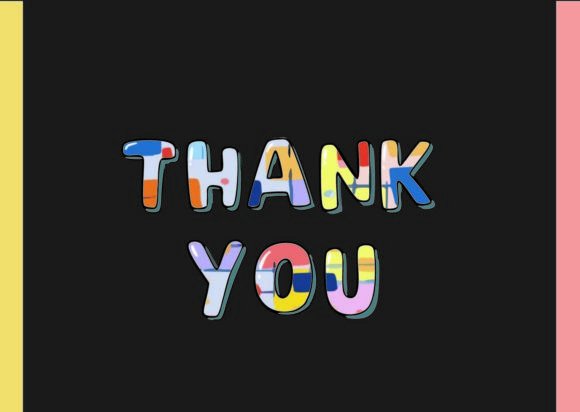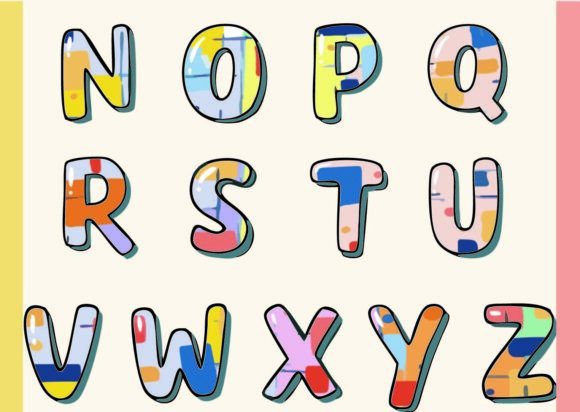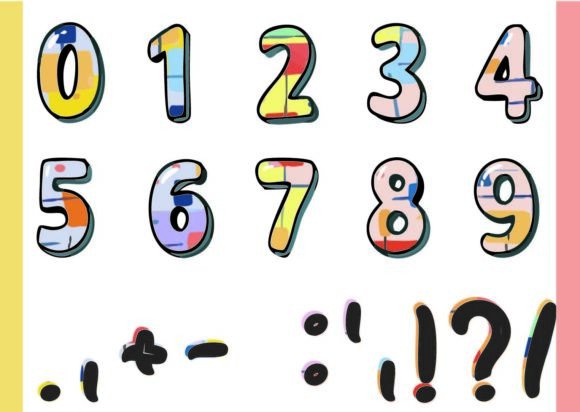
Discover the Vibrant World of Camila Font
Have you ever found yourself staring at a blank canvas, waiting for inspiration to strike? For designers, those moments of creative spark can be the most exciting. It’s the instant when a new idea emerges, and the possibilities seem endless. For Camila Font creator, the spark was ignited by a passion for colorful typography.
Camila Font is a revolutionary color font that brings vibrancy to your designs. With every glyph featuring its own unique color palette, this font is a treasure trove for creatives. Each glyph is a miniature work of art, comprising intricate paths and connections that can be used as a typographic painting. Whether you’re a graphic designer, digital artist, or crafty entrepreneur, Camila Font is a valuable addition to your toolkit.
With its compatibility with popular design software like Photoshop, Illustrator, Silhouette, and Inkscape, Camila Font is an essential tool for designers looking to add a pop of color to their projects. Whether you’re working on a branding project, a social media campaign, or a print design, Camila Font is sure to inspire your creativity and elevate your designs to the next level.
Camila Font Key Features
- Font Family: Camila Font is a sans-serif font family.
- Unique Characteristics: Camila Font features a clean and modern design, with a focus on legibility and readability. It has a distinctive x-height and a subtle rounded edge to the terminals, giving it a friendly and approachable feel.
Camila Font Review
Overall, I think the Camila Font is a decent option for designers looking for a modern sans-serif font. Here’s what I like about it:
- ✨ Elegant and sophisticated feel: The Camila Font has a refined look that’s perfect for luxury brands or high-end designs.
- ✨ Good legibility: The font is clear and easy to read, even at smaller sizes.
- ✨ Versatile: The Camila Font comes in a range of weights and styles, making it suitable for a variety of design applications.
However, I do have some concerns:
- ⚠️ Limited character set: The font may not include all the characters you need for certain languages or special characters.
- ⚠️ Some weights may feel too similar: While the font has a range of weights, some of them may be too similar, making it difficult to create clear visual hierarchy.
Overall, I think the Camila Font is a solid choice for designers who want a modern, elegant font. However, it may not be the best option for designers who need a wide range of characters or a highly customizable font.